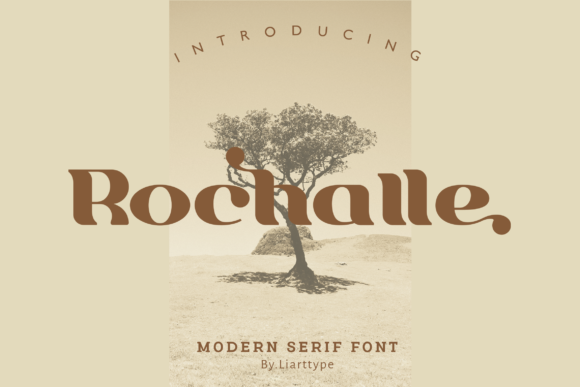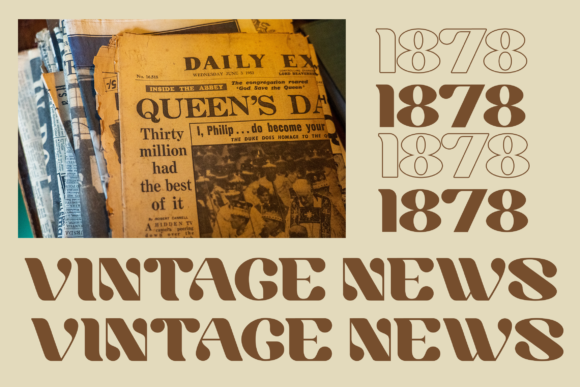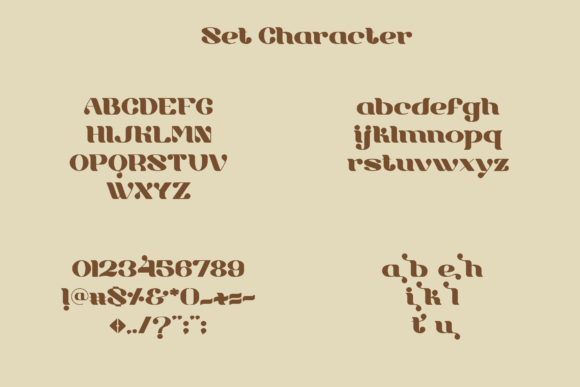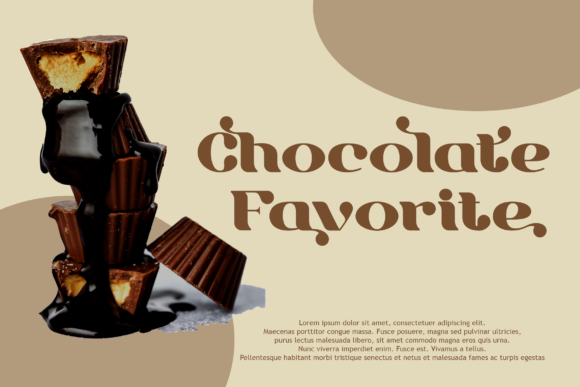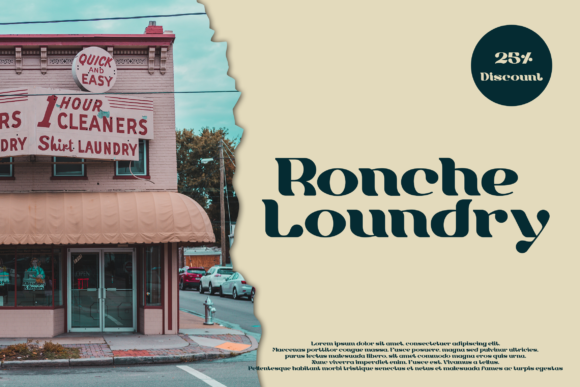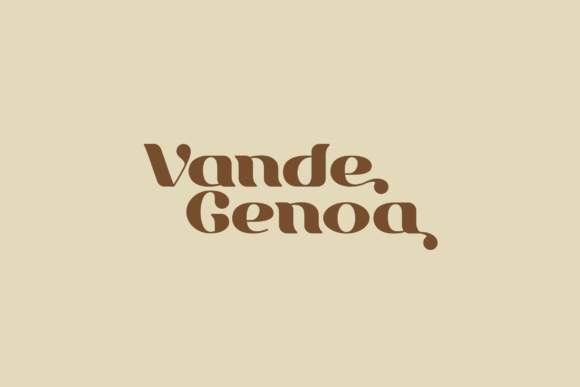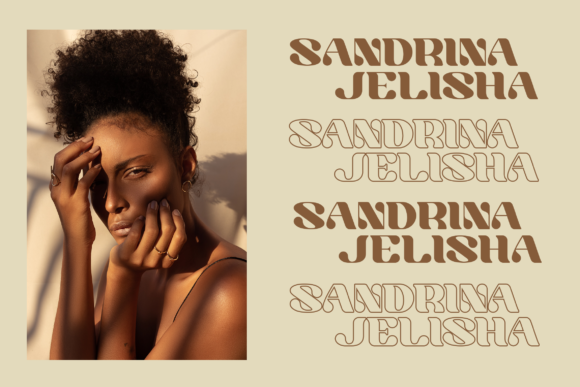
Rochalle
Rochalle Fonts
Rochalle: A Modern and Bold Slab Serif Font
Rochalle is a distinctive slab serif font that combines modernity with boldness. This versatile typeface is designed to enhance a wide range of creative projects, making it a valuable addition to any designer’s toolkit.
Key Features of Rochalle
• Modern Design: Features contemporary letterforms that align with current design trends.
• Bold Aesthetic: Offers a strong and impactful look that commands attention.
• Slab Serif Structure: Incorporates the characteristic thick, rectangular serifs typical of slab serif fonts.
• Versatile Application: Suitable for a wide range of projects, from small text to large displays.
• Impressive Impact: Designed to make any item stand out and impress viewers.
Ideal Uses for Rochalle
Rochalle’s unique characteristics make it particularly well-suited for:
• Eye-catching headlines and titles
• Impactful logo designs
• Striking poster and advertisement layouts
• Bold website headers
• Attention-grabbing social media graphics
• Distinctive packaging designs
When incorporating Rochalle into your designs, consider these tips:
• Use for both large and small text to showcase its versatility
• Experiment with different sizes to highlight the font’s bold details
• Take advantage of its ability to make designs stand out across various projects
Rochalle is an excellent choice for designers looking to add a modern and bold slab serif font to their typographic toolkit. Its versatility and striking appearance make it stand out in the world of typography. Whether you’re working on logo designs for contemporary brands, creating layouts for impactful advertisements, or developing content that requires a strong visual presence, Rochalle offers the perfect blend of modernity and boldness.
Furthermore, Rochalle’s adaptability allows it to shine in various contexts. From vintage-inspired designs with a modern twist to more playful layouts that need a touch of boldness, this font can elevate your projects. Its ability to impress at both large and small sizes makes it particularly versatile for designers working across different mediums.
In conclusion, Rochalle is a font that lives up to its bold and modern reputation, adding a striking flair to your designs. Its ability to work well in both contemporary, minimalist projects and more elaborate layouts showcases its flexibility. For those looking to add a touch of modern boldness to their work, Rochalle can even enhance traditional designs with its unique, impactful style, ensuring your creative projects always stand out and impress.